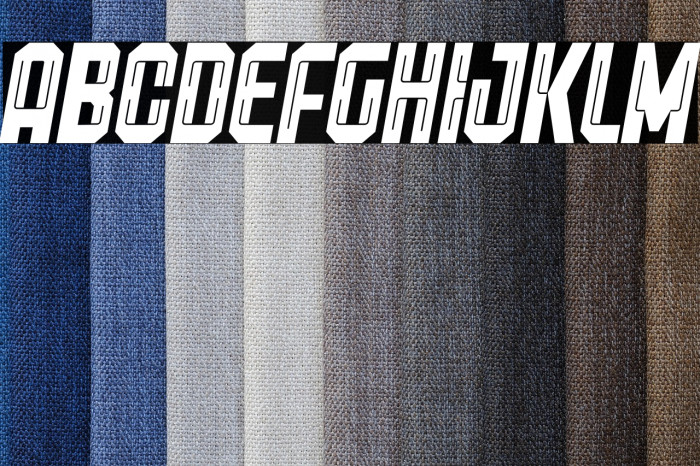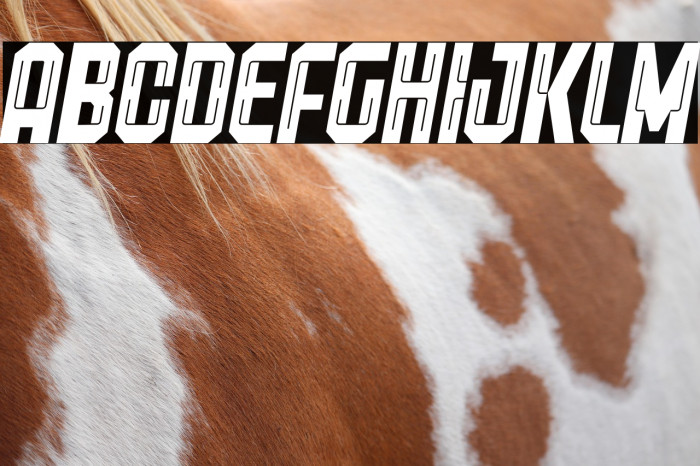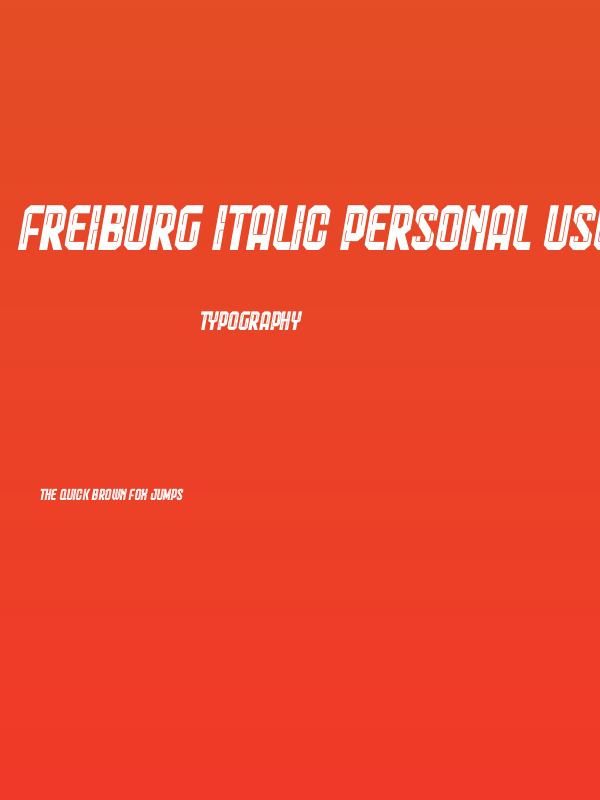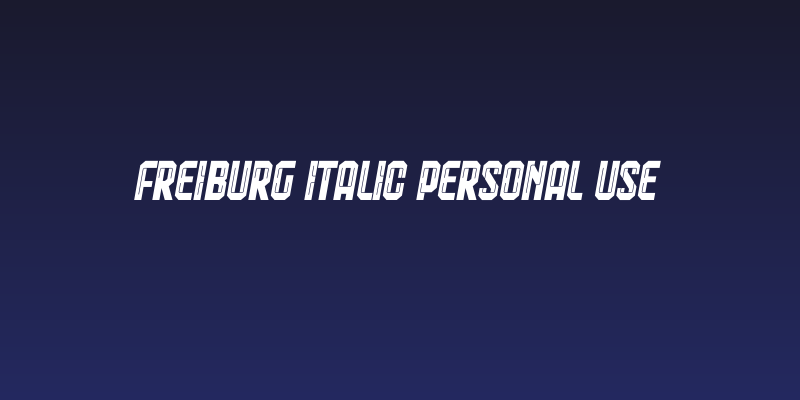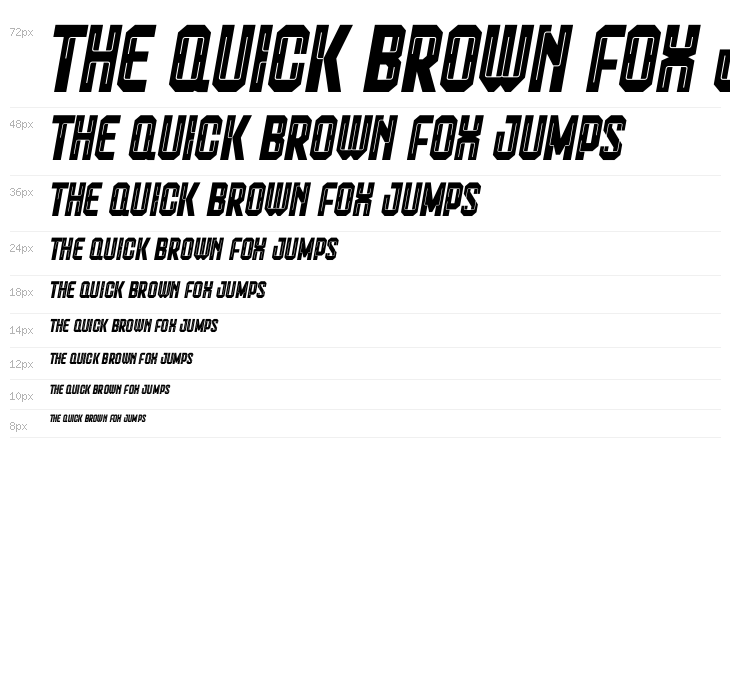
Freiburg Italic PERSONAL USE Font
Freiburg Italic PERSONAL USE Description
This font features a bold and dynamic style with a strong italic slant, giving it a sense of movement and urgency. The characters are blocky with sharp edges, creating a striking and impactful appearance. The uppercase and lowercase letters maintain a consistent design, with the lowercase being slightly smaller but equally bold. Numbers and special characters follow the same bold and angular style, ensuring uniformity across all glyphs. The font's thick strokes and high contrast make it highly visible and attention-grabbing, suitable for designs that require a strong visual impact.
| Proposed Projects | Ideal for sports branding, posters, headlines, and any project needing a bold and energetic typeface. |